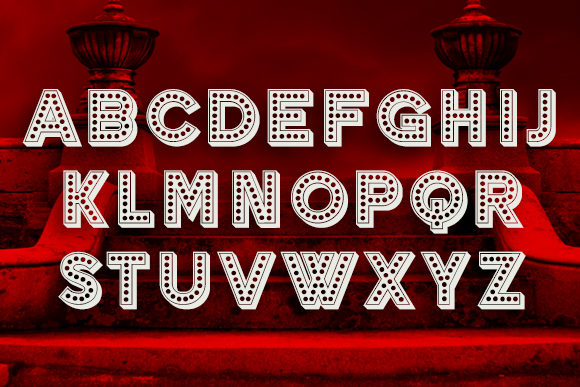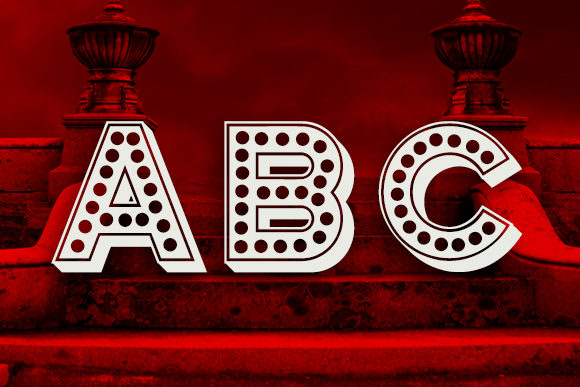
Gloom Font: Adding a Touch of Neon Elegance to Your Designs
Are you tired of using the same old fonts in your designs? Look no further than the Gloom Font, a stunning neon-style decorative font that’s sure to add a touch of elegance to any project. In this article, we’ll take a closer look at the Gloom Font, its features, and how you can use it to take your designs to the next level.
What is Gloom Font?
Gloom Font is a unique and inspiring decorative font that’s been crafted in a neon style. Its bold, eye-catching design makes it perfect for a wide range of projects, from crafting and scrapbooking to graphic design and digital art. With its sleek, neon-lit aesthetic, Gloom Font is sure to add a touch of sophistication and glamour to any design.
Key Features of Gloom Font
So, what makes Gloom Font so special? Here are just a few of its key features:
- Neon Style: Gloom Font features a bold, neon-style design that’s sure to grab attention.
- Decorative: This font is perfect for adding a touch of elegance and sophistication to any design.
- Versatile: Gloom Font can be used for a wide range of projects, from crafting and scrapbooking to graphic design and digital art.
How to Use Gloom Font in Your Designs
Now that we’ve covered the basics of Gloom Font, let’s take a look at how you can use it in your designs. Here are a few ideas to get you started:
- Crafting: Add a touch of neon elegance to your scrapbooking and crafting projects with Gloom Font.
- Graphic Design: Use Gloom Font to add a bold, eye-catching touch to your graphic designs.
- Digital Art: Gloom Font is perfect for adding a touch of sophistication and glamour to your digital art projects.
- Signage: Use Gloom Font to create stunning signs and posters that are sure to grab attention.
Tips and Tricks for Getting the Most Out of Gloom Font
Here are a few tips and tricks for getting the most out of Gloom Font:
- Experiment with Colors: Gloom Font looks great in a range of neon colors, so don’t be afraid to experiment and find the perfect shade for your design.
- Play with Size: Gloom Font can be used at a range of sizes, from small and subtle to large and bold.
- Combine with Other Fonts: Try combining Gloom Font with other fonts to create a unique and eye-catching design.
In conclusion, Gloom Font is an awesome inspiring decorative font that’s sure to add a touch of neon elegance to any design. With its bold, eye-catching design and versatile features, Gloom Font is perfect for a wide range of projects, from crafting and scrapbooking to graphic design and digital art. So why not give Gloom Font a try and see the amazing possibilities for yourself?